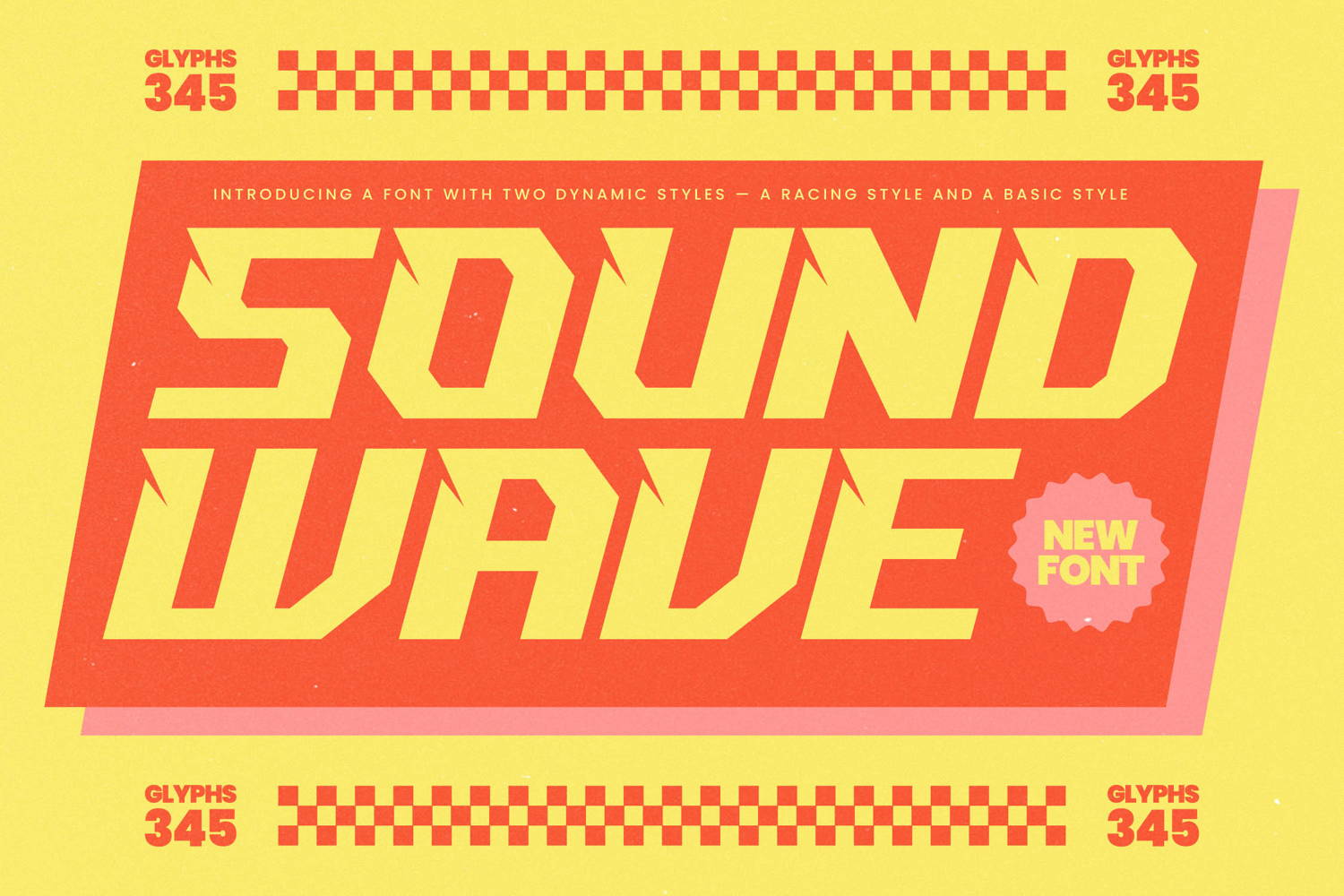
Sound Wave - Sport Display Font
Ignite your visuals with unmatched kinetic energy. Sound Wave - Sport Display Font is a powerhouse display typeface engineered for maximum visibility and impact. Its heavy, geometric construction and sharp, angular terminals deliver an immediate sense of speed and forward momentum, making it ideal for grabbing attention in demanding visual environments. The inclusion of two dynamic styles offers flexibility, providing both a clean base and a specialized racing variant to accelerate your design concepts and ensure a truly unique presentation.
Command attention in high-stakes visual projects. This font is perfect for high-octane branding, esport titles, athletic apparel, bold packaging, and dynamic movie posters. The robust weight of Sound Wave - Sport Display Font ensures powerful readability even at extreme sizes, positioning it as the ultimate choice for headline typography where the message must hit hard and fast. Utilize its aggressive aesthetic to capture the spirit of competition, energy drinks, and victorious sports league promotions.
Expand your reach without sacrificing design integrity. With its extensive multilingual support, Sound Wave - Sport Display Font adapts seamlessly across global markets, making it incredibly versatile for international projects. This comprehensive language capability ensures that your high-impact branding translates fluently, maintaining its iconic aesthetic whether used for European sports leagues or Asian gaming tournaments. This feature guarantees true global accessibility.
Invest in professional-grade design assets built for performance. Every glyph within Sound Wave - Sport Display Font has been meticulously crafted and kerning-optimized for flawless output across digital and print media. Designed as a truly professional display tool, it merges retro racing nostalgia with contemporary geometric structure, promising a look that is both timelessly cool and immediately relevant. Secure this essential font for your next speed-driven project today and dominate the design landscape.